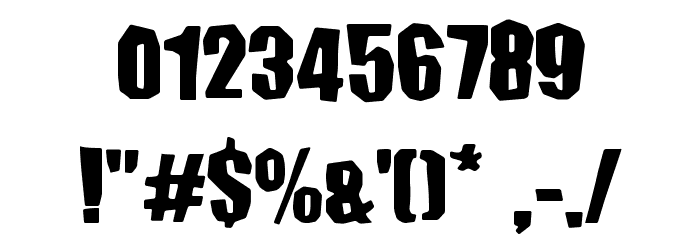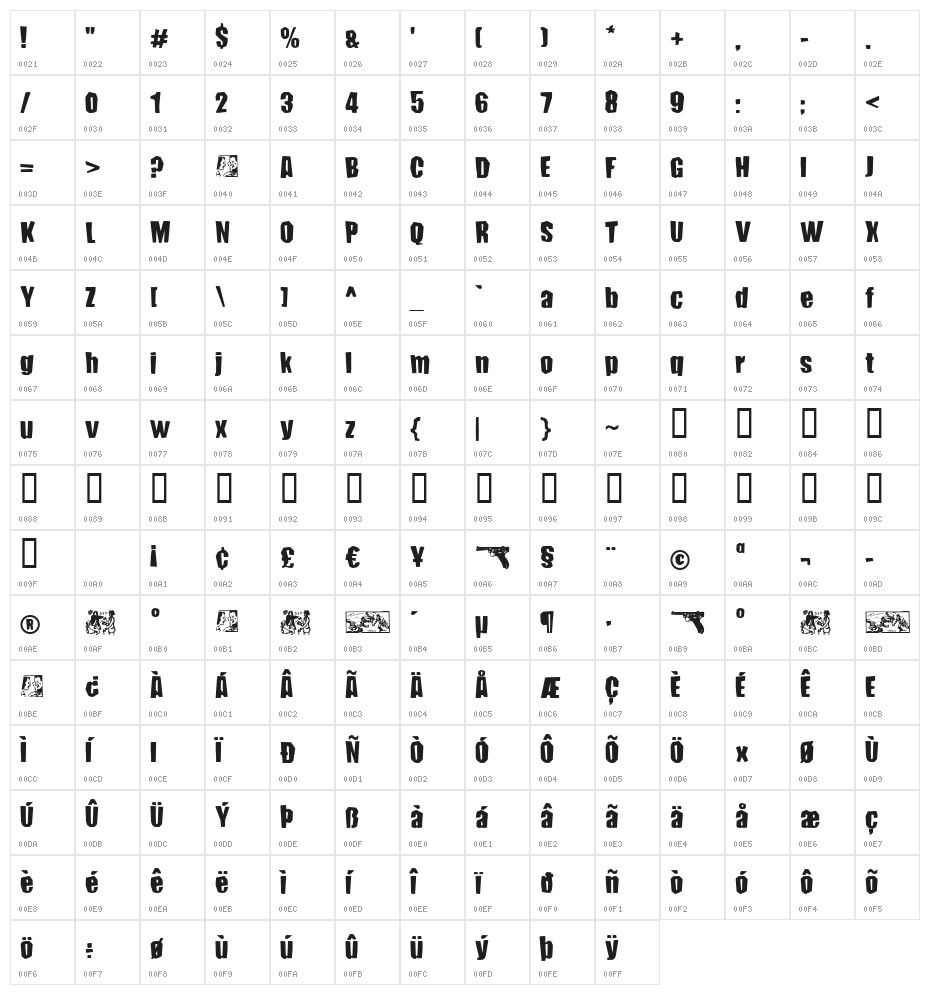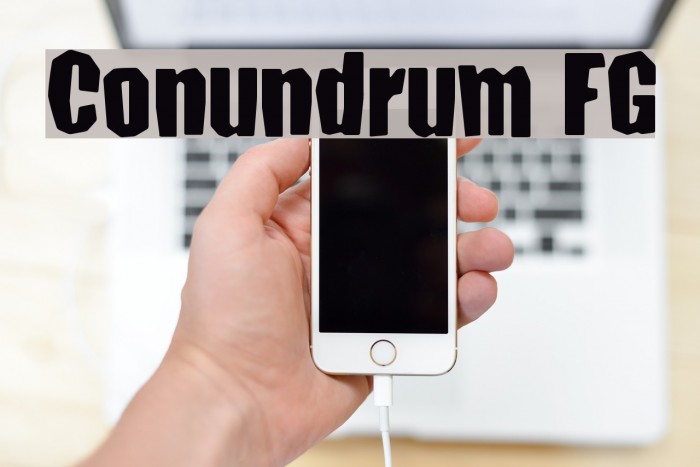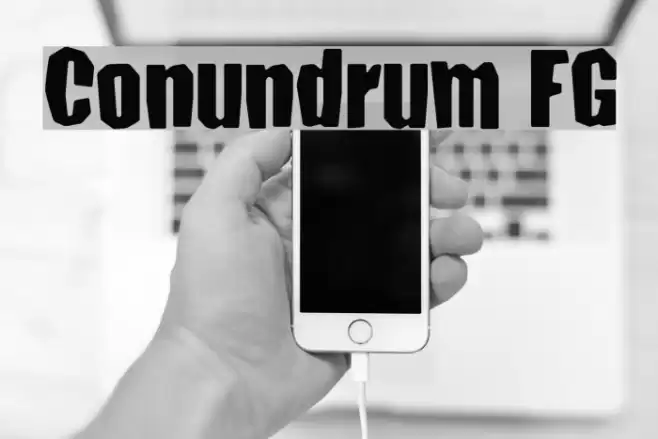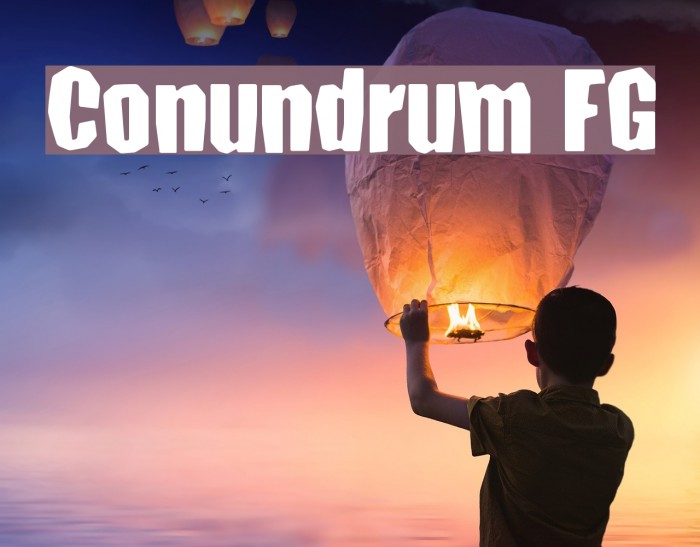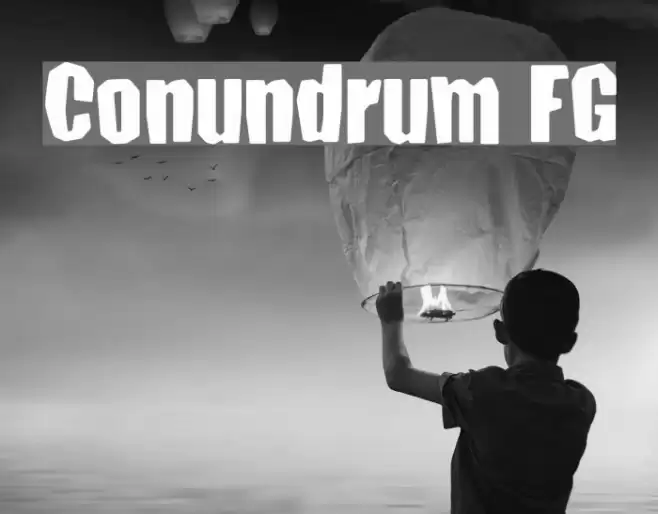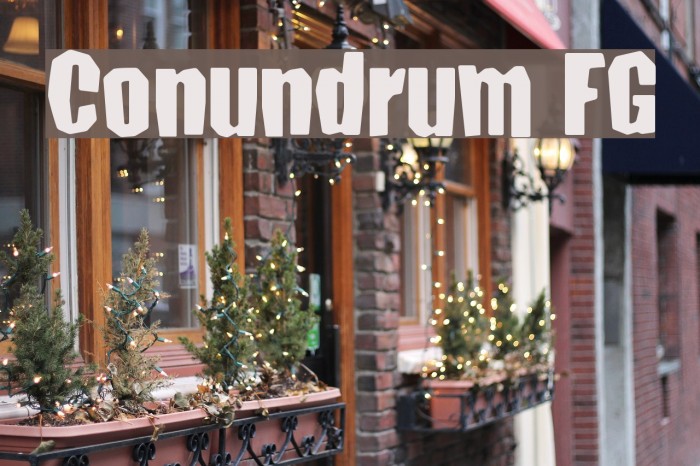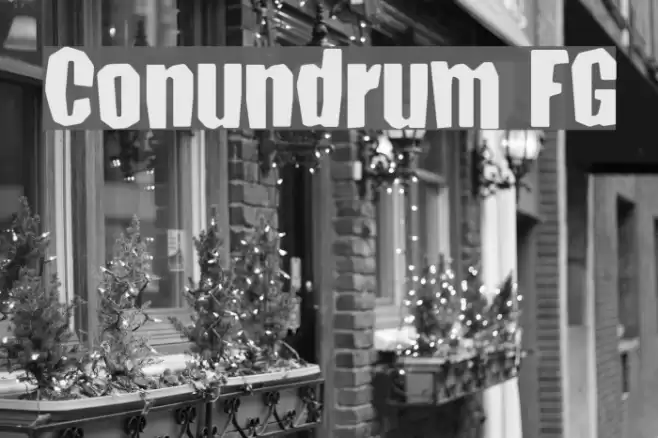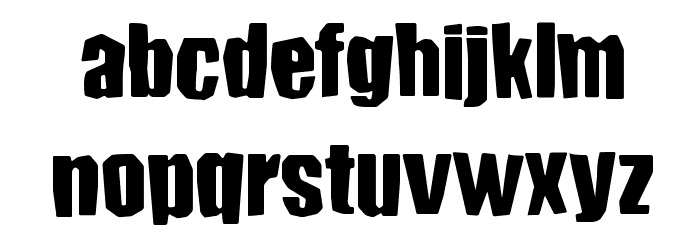
Conundrum FG Font
Conundrum FG Description
This font features a bold and dynamic style with a slightly distorted appearance, giving it a unique and eye-catching look. The characters are thick and robust, with irregular edges that add a playful and informal touch. The uppercase and lowercase letters maintain a consistent weight, while the numbers and special characters follow the same bold design. This font's distinctive style makes it ideal for projects that require a strong visual impact.
| Proposed Projects | Ideal for posters, headlines, branding, and any design needing a bold statement. |